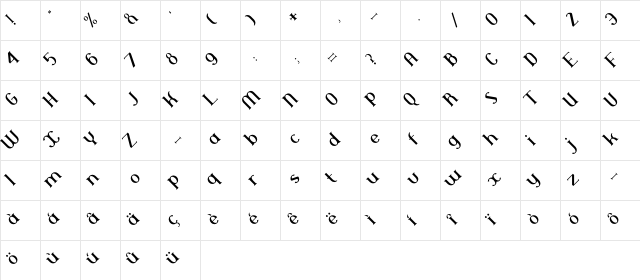
ClassicusTitulus LT Std Regular
Design Context for ClassicusTitulus LT Std Typeface
ClassicusTitulus LT Std has the warm character of retro typography — evoking diners, record sleeves, and the golden age of print advertising. The delicate stroke weight brings airiness and refinement to layouts.
Font Pairing: Combine ClassicusTitulus LT Std with a simple slab or neutral sans — period-accurate companions reinforce the vintage feel without competing for attention.
Pro Tip: Lean into ClassicusTitulus LT Std's period character by pairing it with aged paper textures, muted colour palettes, and vintage illustration styles.